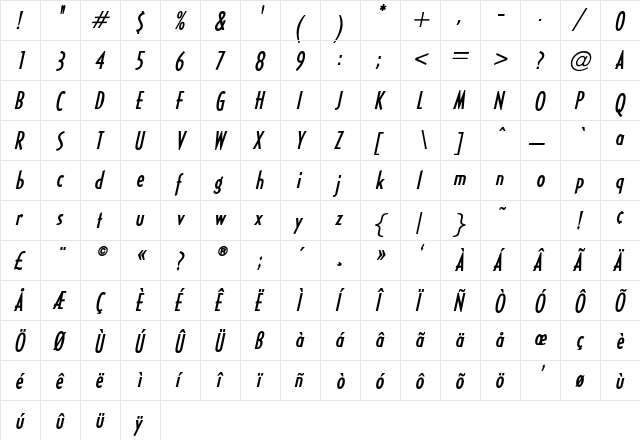
HalseyLightCondSSK BoldItalic Font Preview
Design Context for HalseyLightCondSSK Typeface
HalseyLightCondSSK takes a measured approach to typography — its balanced proportions and neutral character make it a reliable workhorse for both digital and print work. The dynamic lean of this cut emphasises speed and emphasis in any layout. Its bold stroke weight gives it real presence on the page. Its narrow stance lets it pack a punch even in space-constrained designs.